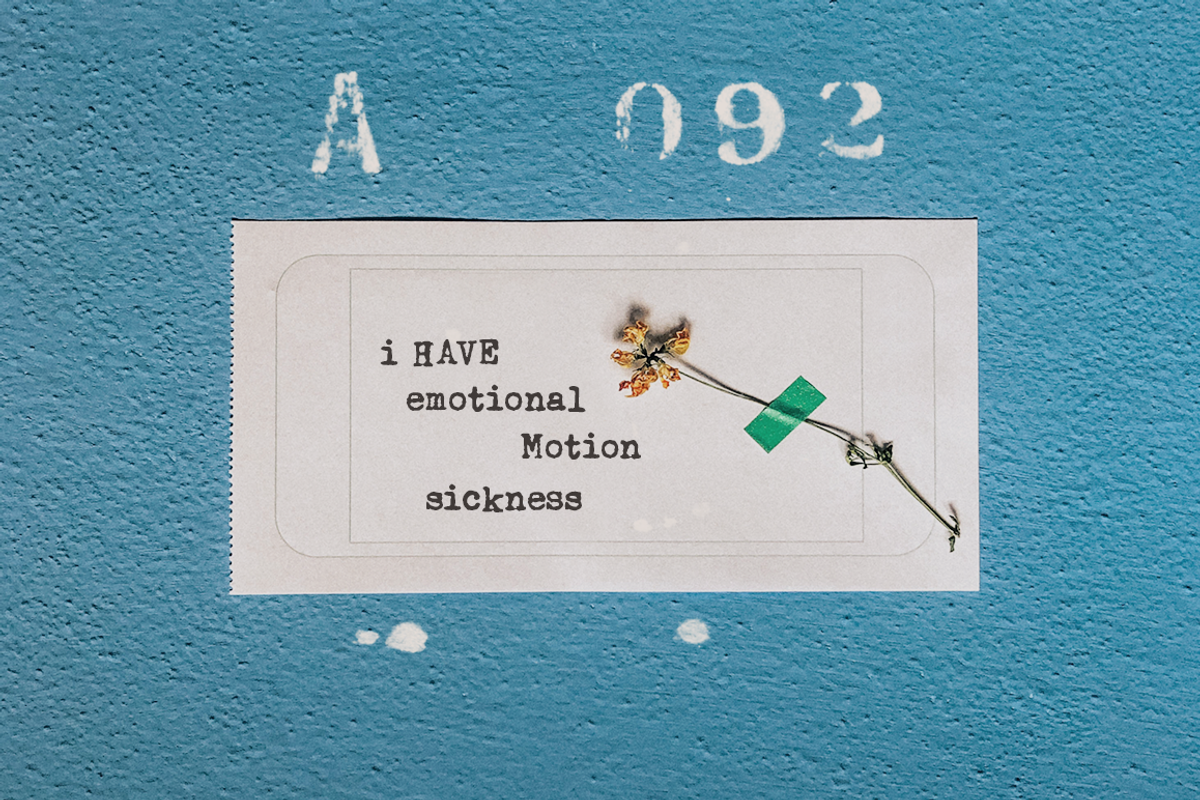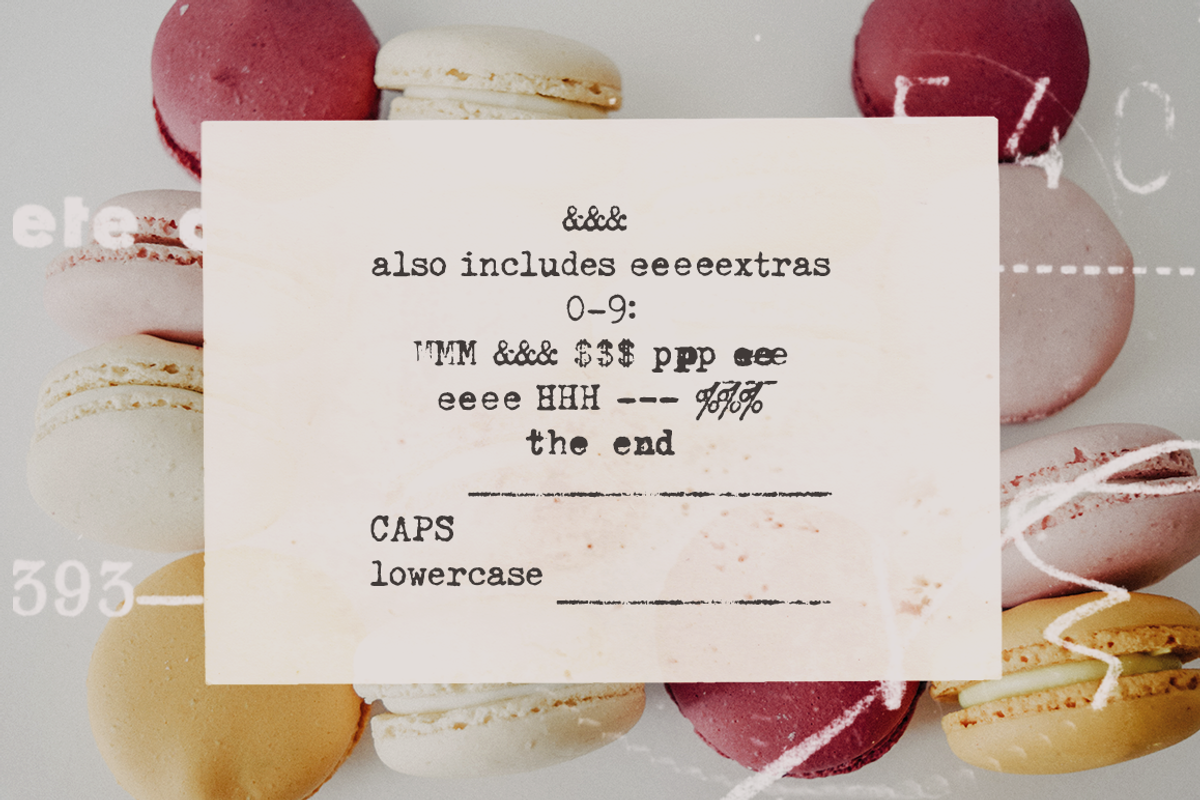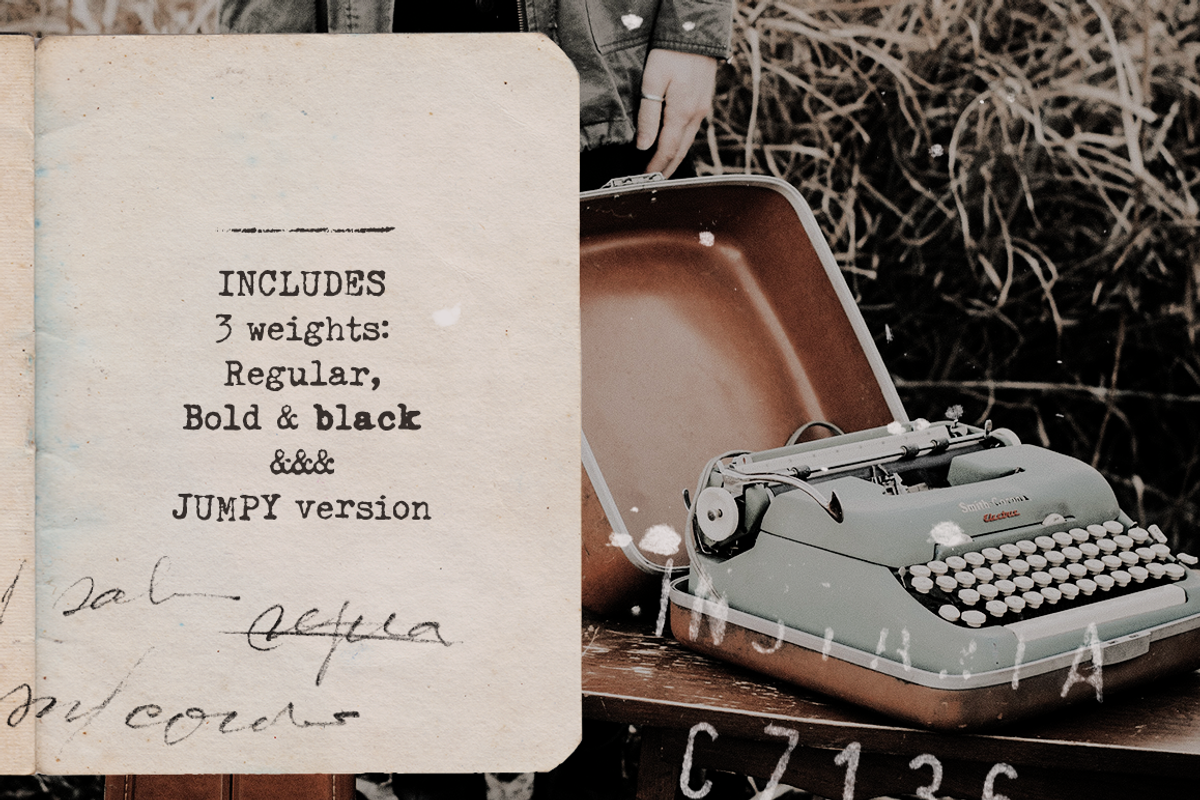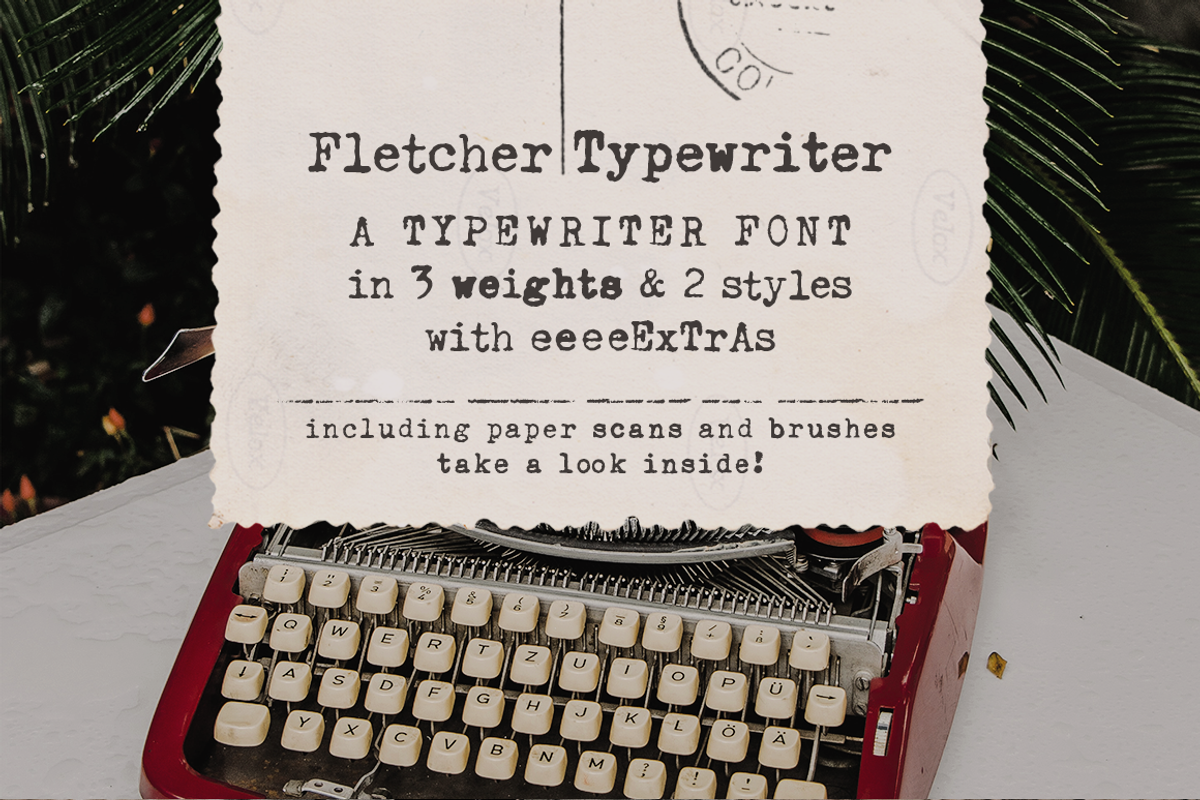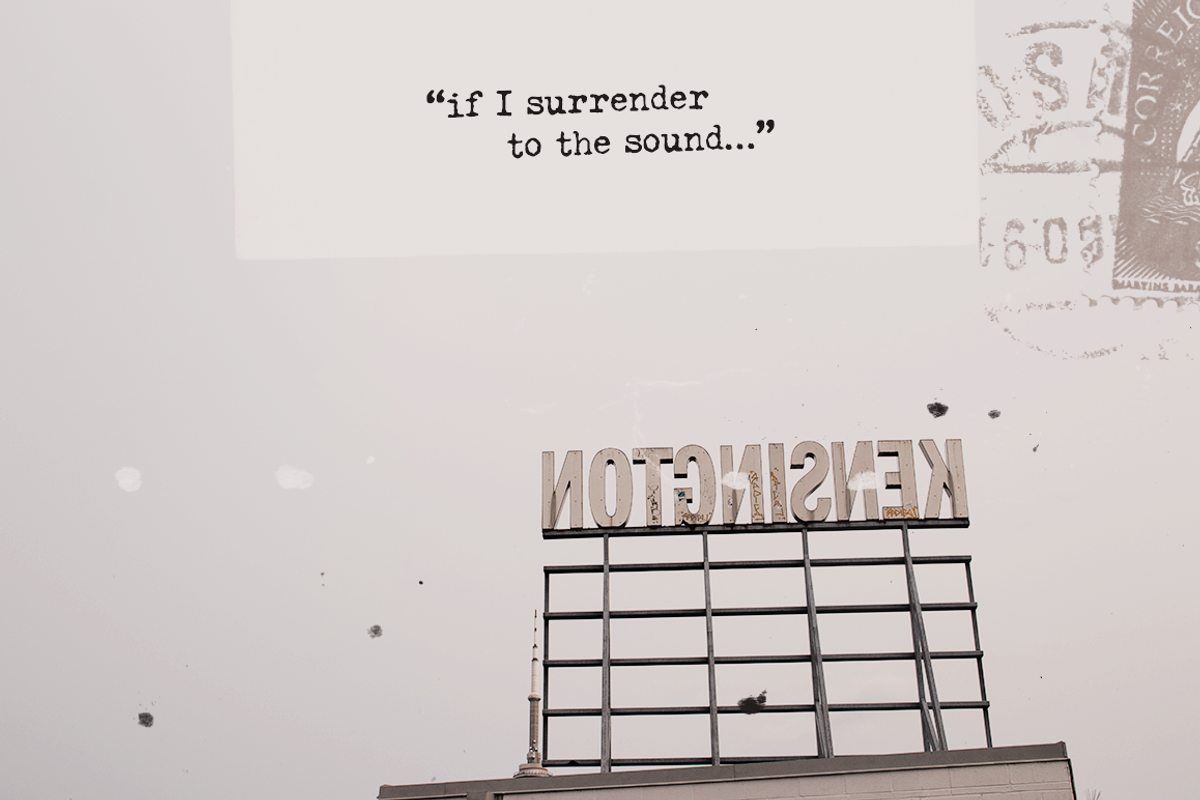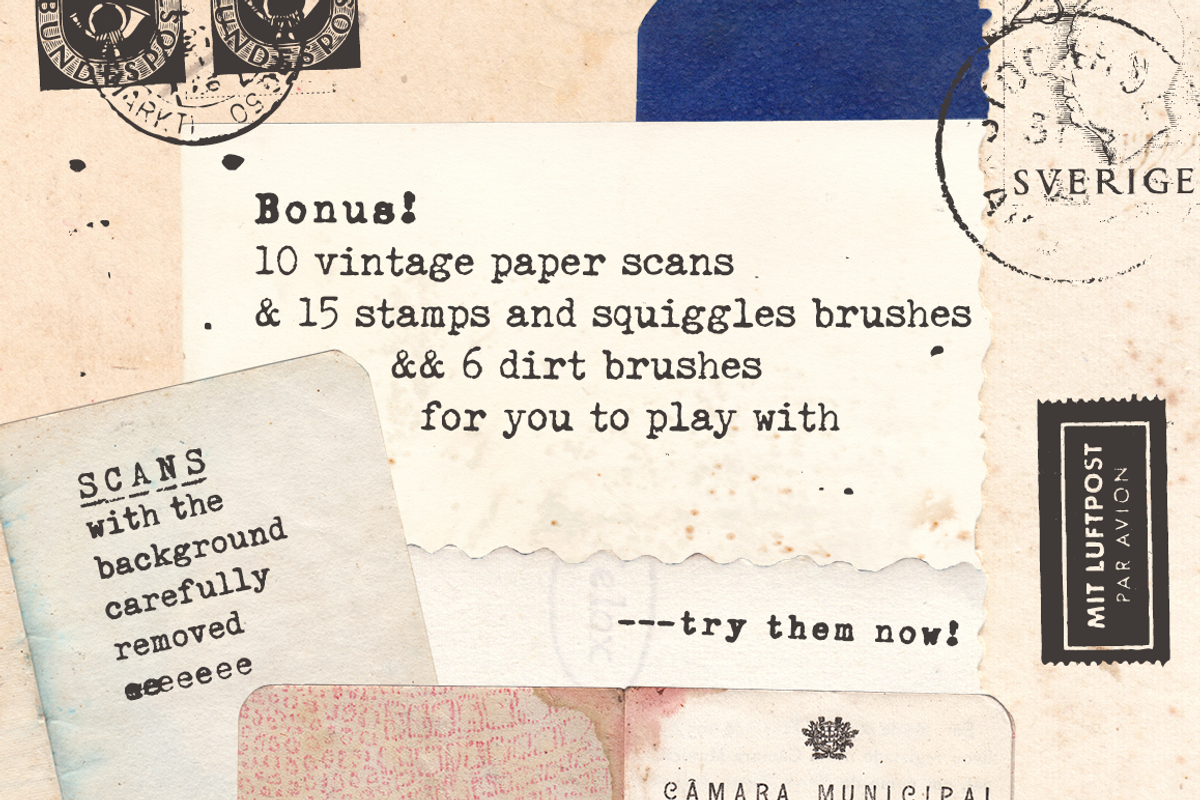
Fletcher Typewriter Font & Extras
Fletcher Typewriter font and extras is a mini vintage design kit that includes an authentic vintage typewriter font, aged paper scans, stamps and writing from old postcards and stains and splatters to add an extra retro look to your designs. Use it in long or short texts, in digital collages, branding and packaging, social media posts, logotypes, etc.
1 font family with 3 weights (regular, bold, black - each weight drawn individually), 2 styles (regular and jumpy) and extras
15 stamps (brushes, transparent PNGs and in the extras font)
6 stains and splatters (brushes, transparent PNGs and in the extras font)